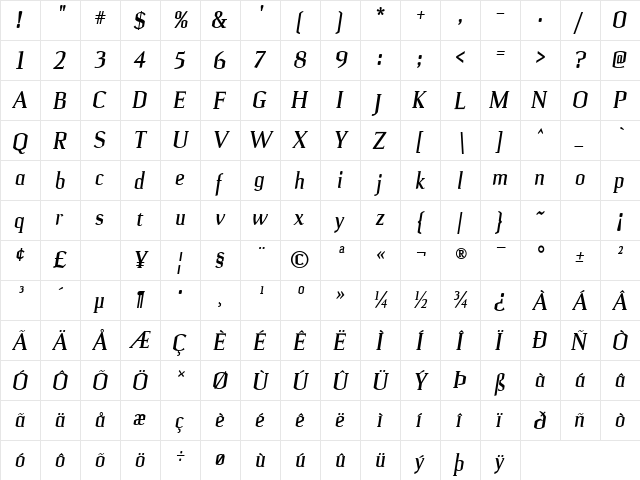
Ulian Bold Italic Font Preview
Ulian Bold Italic
Ulian Bold Italic Font Details
Design Context for Ulian Typeface
Ulian is a composed and adaptable typeface that performs quietly and consistently across a wide range of design contexts. The slanted form adds forward momentum and visual energy. The heavy weight commands attention and anchors typographic hierarchies.